This week, the Indian Type Foundry brings two very different typefaces to your attention. The first, Abelard, is a Latin-script serif family for setting long passages of text. It was especially designed with eReaders in mind. The second, Blonde Script, is a casual, sign-painter-stlye script face. It includes a roster of swashes and alternates.
Abelard
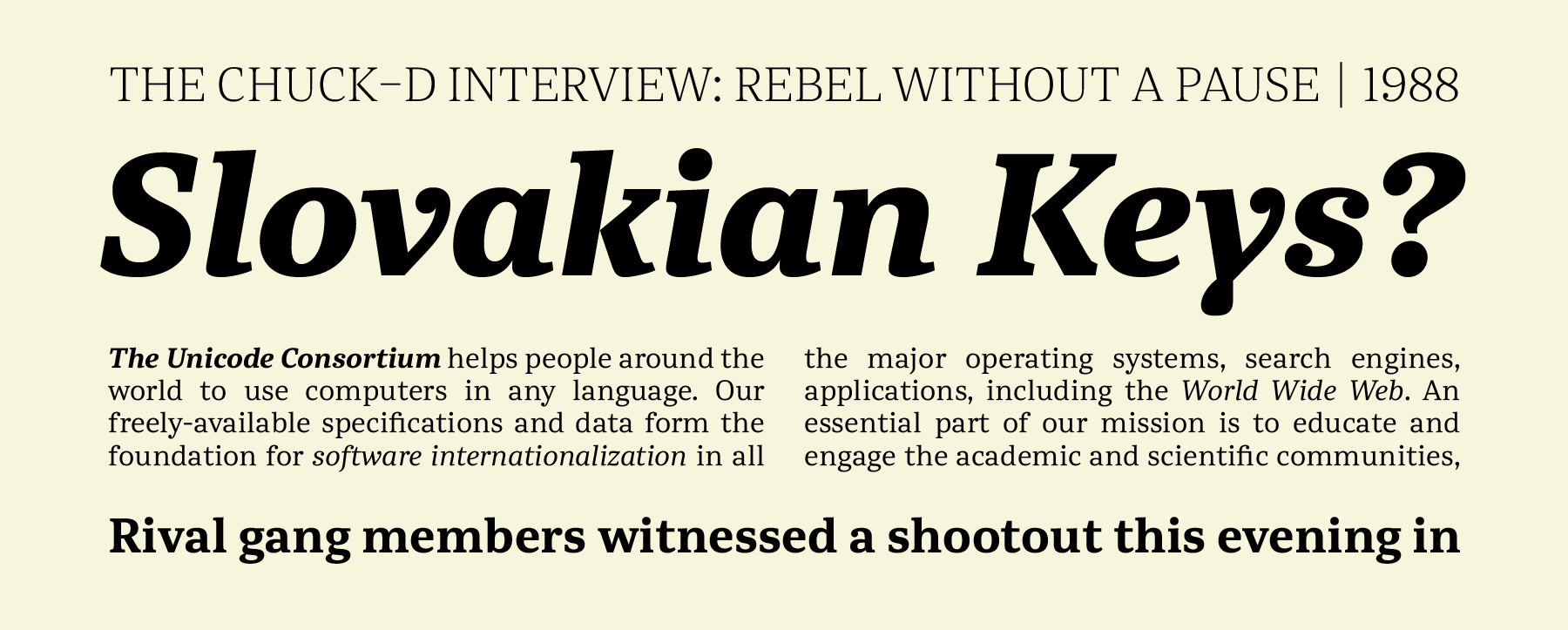
Abelard focuses on functionality. It’s a modern (or neoclassical) family, with 10 styles. The weights range from Light to ExtraBold, and each has a companion italic. Abelard was designed by Barbara Bigosińska, a Polish designer living in the Netherlands. Bigosińska is a graduate of the MA type]media course at the Royal Academy in The Hague (KABK), where she learned mastery of broad-nib and pointed-pen writing styles. Abelard’s contrast model is vertical, like most other neoclassical-style typefaces. Its letterforms are based on pointed-pen models. With Abelard, Bigosińska has created a contemporary response to neoclassical types like Baskerville, Bulmer, and Scotch Roman.
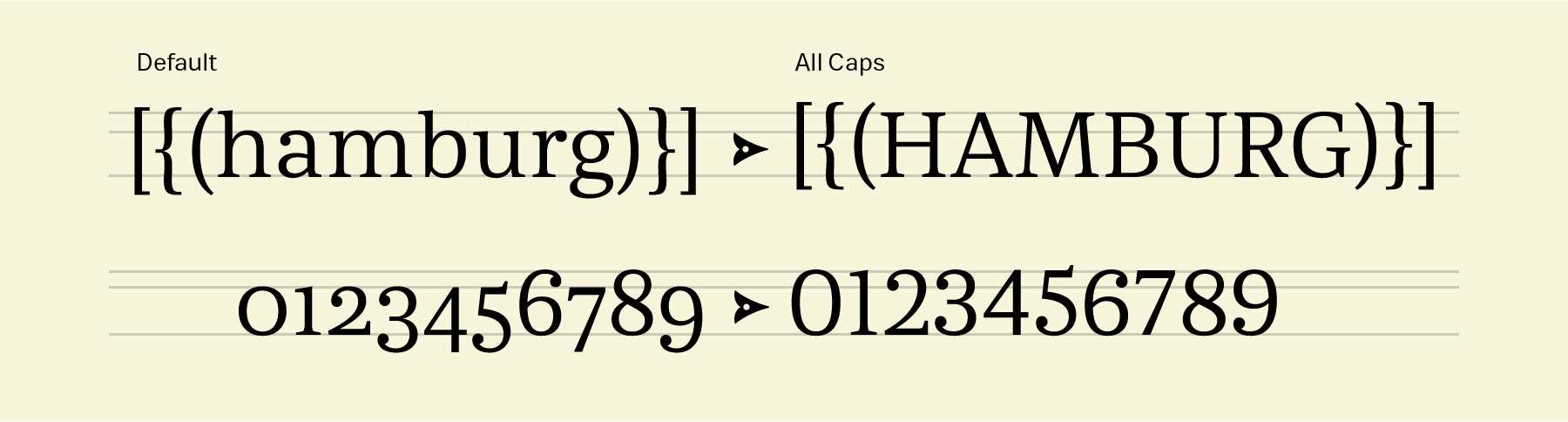
Bigosińska optimised Abelard for use in printed text and eText. The typeface features several elements which ensure that text set with it maintains even color, no matter what rendering conditions arise. These features include case-sensitive punctuation, which may be activated via the OpenType <case> feature. This substitutes 36 glyphs with variants whose forms are suited to all-caps settings. However, all of the punctuation, whether it is optimised for upper or lowercase text, is prominent. Abelard does not tolerate shy punctuation marks! Each Abelard font also includes 13 separate f-ligatures, and a set of eight ornaments that resemble pen nibs, bullet points, or arrows. Abelard is equipped with four sets of figures, too (oldstyle and lining figures in both proportional and tabular variants). Since Abelard’s capitals are designed with neoclassical proportions; most of them appear to have similar widths. The fonts’ lowercase letters feature open apertures, a moderate x-height, and mild stroke-contrast. Abelard’s ball terminals are another hallmark neoclassical element. The design’s lowercase ‘f’ and ‘r’ are narrow, in order to prevent their creating holes in words. All of these characteristics help give text set in Abelard a relaxed and even appearance. While Abelard’s roman styles are elegant and sober, the italics are more flamboyant – just look at the lowercase ‘y’ in each italic font. Abelard’s italics are slightly narrower than the romans, and they’re lighter in weight, which increases their ability to offer clear differentiation in text. The italic ‘v’, ‘w’, and ‘y’ each have their right arm curved, which improves their spacing.
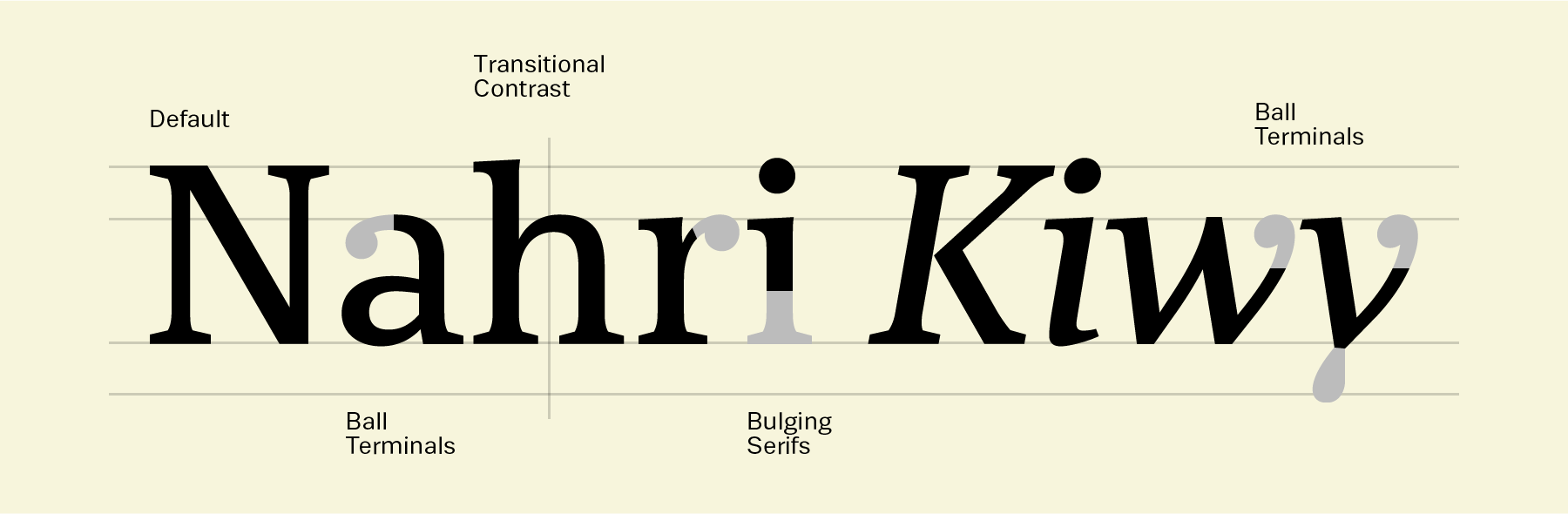
Bigosińska’s Abelard typeface shares its name with Peter Abelard (1079–1142), a medieval French philosopher and theologian. His tragic affair with Héloïse d’Argenteuil – and their subsequent, life-long correspondence with one another – remain one of the most enduring true-life love stories from the Middle Ages. The two lovers are remembered with a nineteenth-century monument in Paris’s fabled Père Lachaise Cemetery. Like Peter Abelard, Bigosińska’s typeface is resolute, noble and strong, with a deep-minded passion for books and philosophy. Abelard is Bigosińska’s second serious type family to date, and her debut release with ITF. Previously, she designed Mala, her first full typeface family, at type]media in 2013.
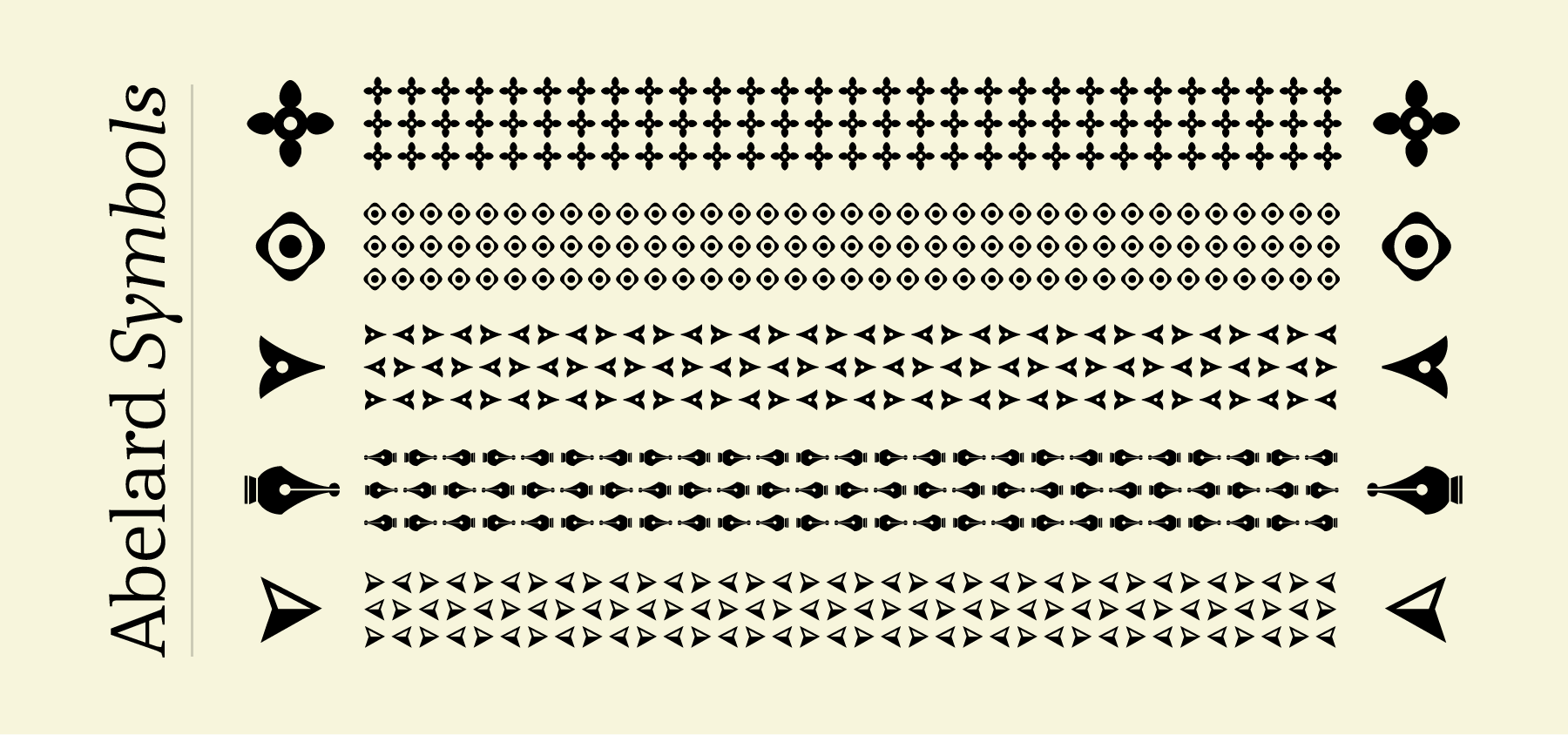
Blonde Script
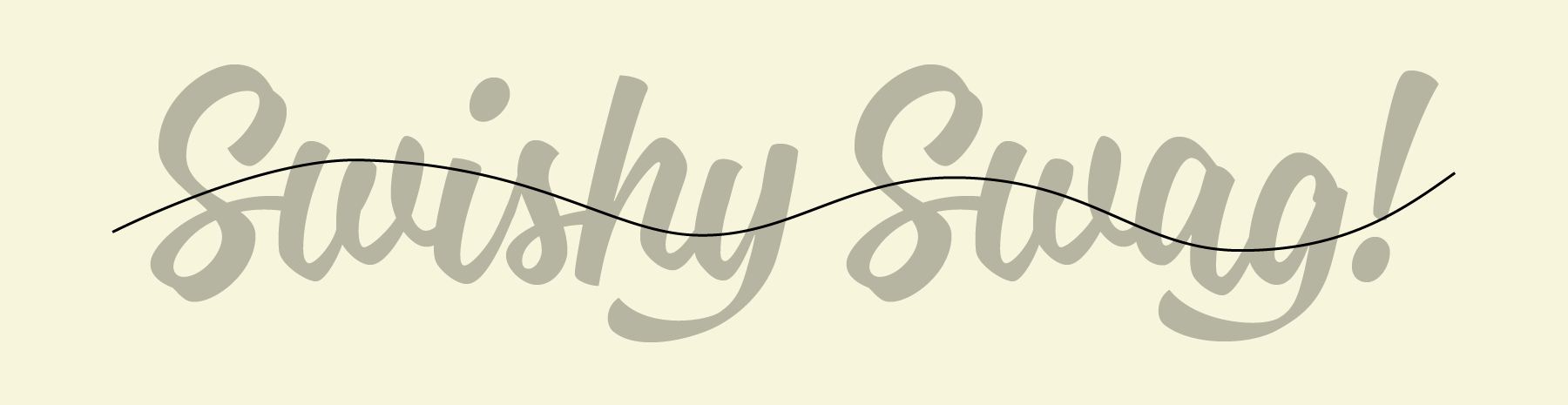
Blonde Script is a single-style typeface full of stylistic alternates. The font has 815 glyphs in total. Aside from the alternate letterforms, there are 25 ligatures, plus special glyphs for price tags; logotypes for words like ‘for’, ‘of’, ‘the’, and ‘with’; and even a hand-written heart symbol. Blonde Script’s design looks like the kind of informal brush lettering written by sign painters, especially American sign painters in the twentieth century. Today, this kind of lettering is often used for signage in cafés and restaurants: on large boards, menus, placards, and other point of sale advertisements.Text set in Blonde Script, with its normal setting, maintains a rather even baseline. However, as soon as Stylistic Set 1 or 2 are activated, the letters begin to dance above and below the baseline. The movement of text along the line becomes fluider and even more informal. Blonde Script contains a broad variety of contextual alternates, so be sure to activate that feature in Illustrator, InDesign, or PhotoShop when using the font! Additionally, Blonde Script includes other substitutions available via OpenType features, such as Swash Letters and Small Caps (Small Caps are a quite unusual bonus in a script typeface). The font includes three kinds of figures: lining figures, oldstyle figures, and small cap figures, too.
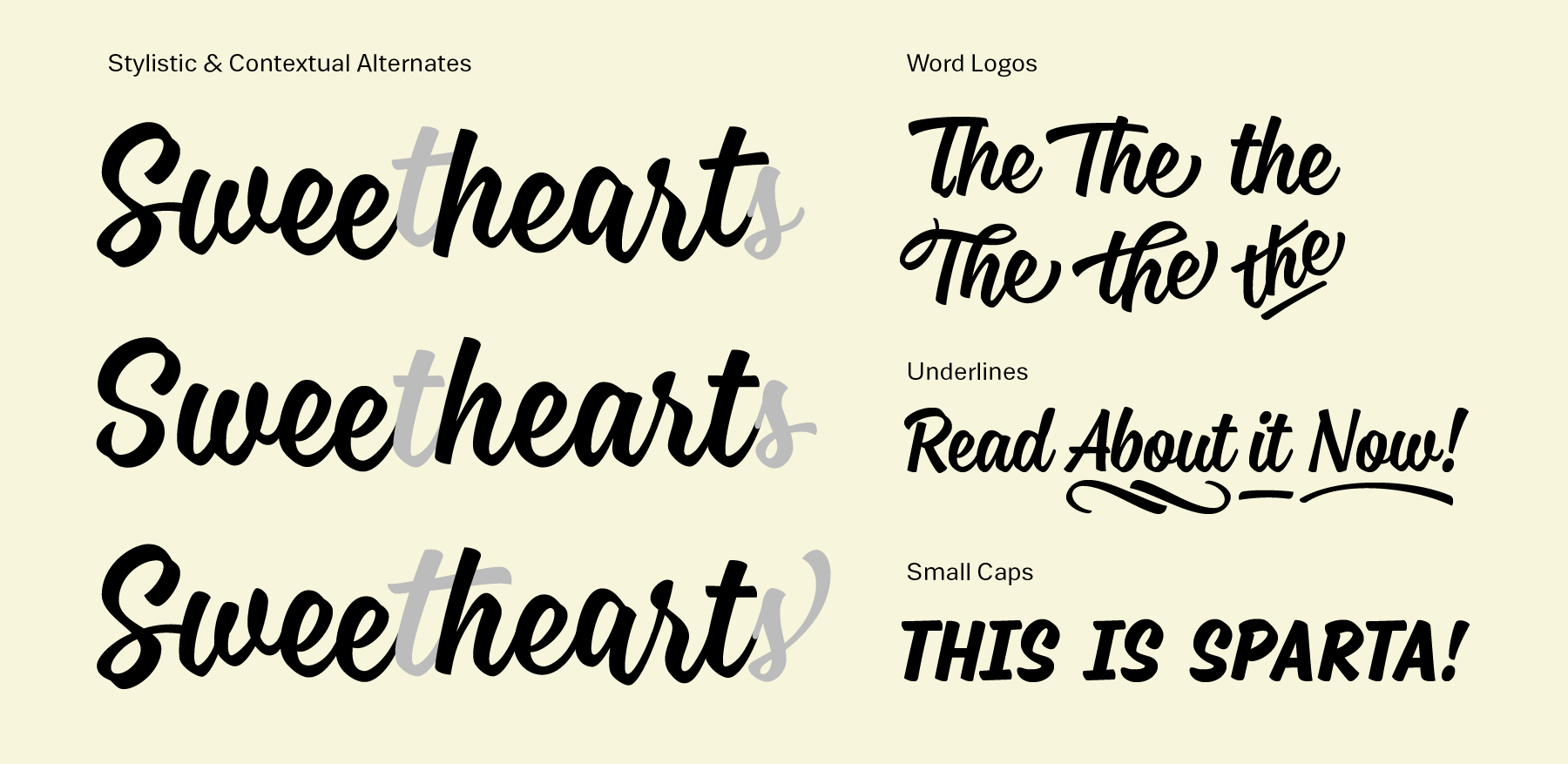
Blonde Script was designed by Nikola Giacintová, a Czech designer. This is her second commercial release, and her debut typeface with ITF. Her first typeface was Rukola, which was part of the “Bestsellers” project that took place at the Academy of Art, Architecture and Design in Prague a few years ago.